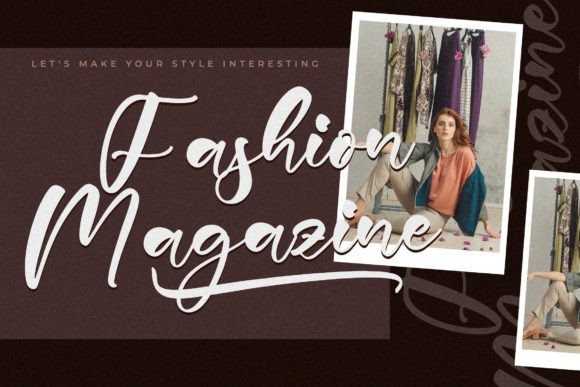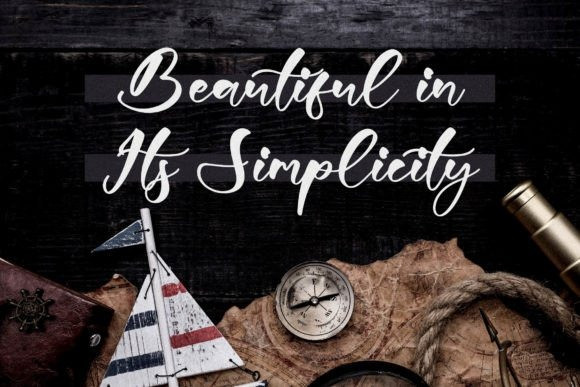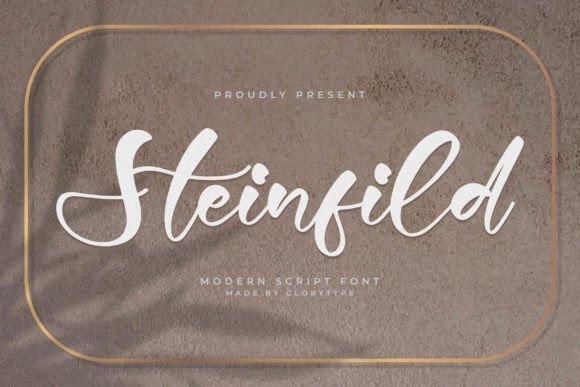
Steinfild Font
Steinfild – Modern Script Font, from Glorytype Studio, suitable for any projects such as: logos, branding projects, homeware designs, product packaging, mugs, quotes, posters, shopping bags, t-shirts, book covers, name card, invitation cards, greeting cards, label, photography, watermark, special events, and all your other lovely projects that need a beautiful script taste.